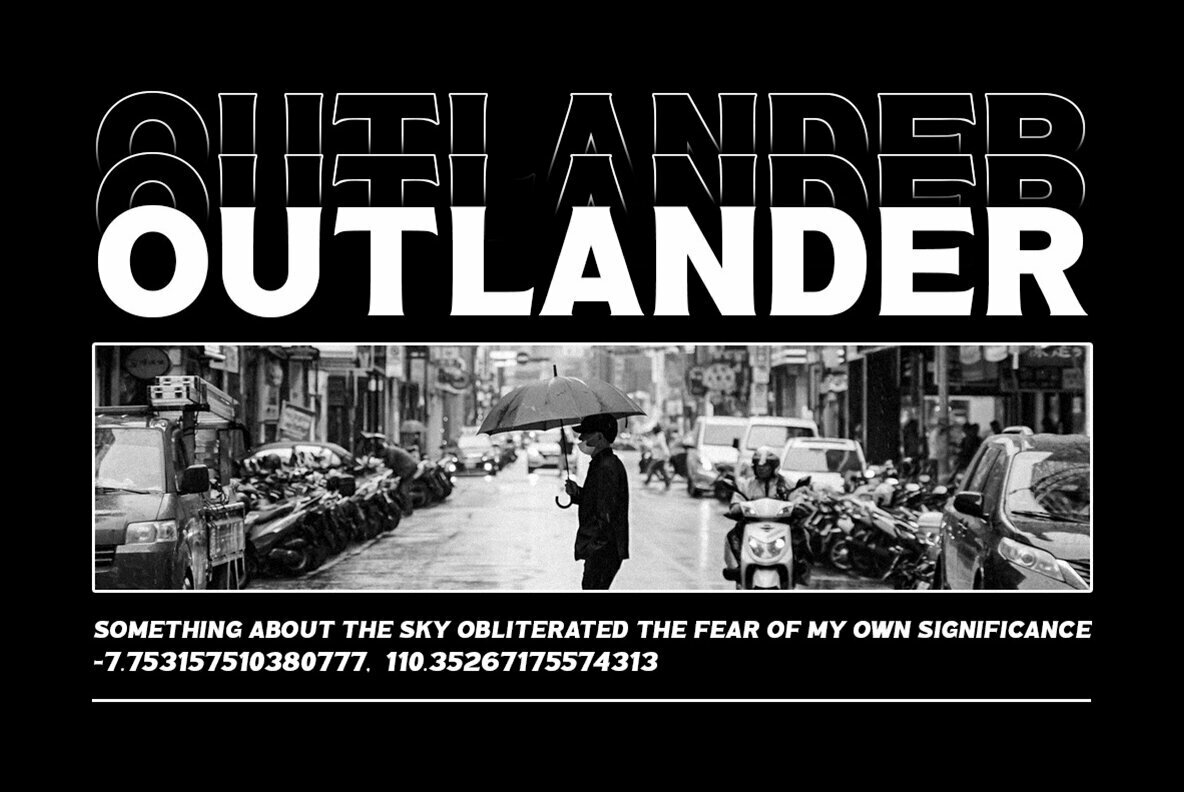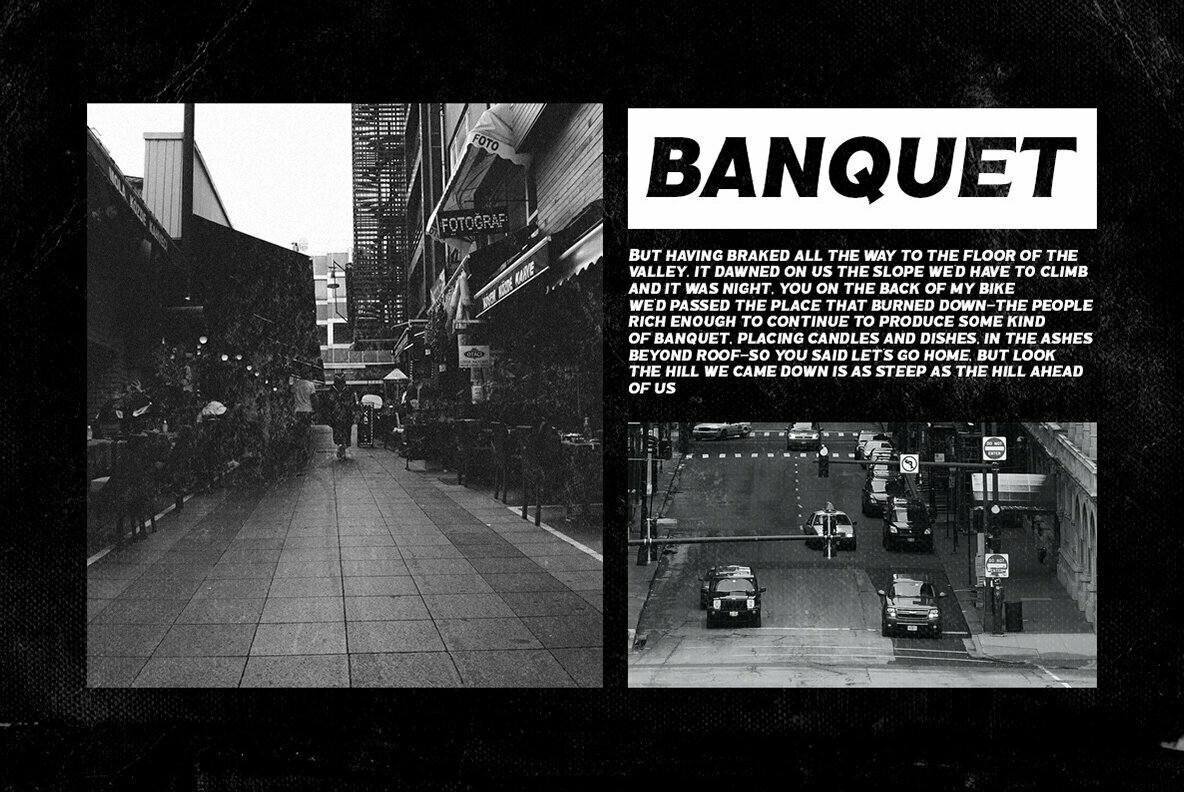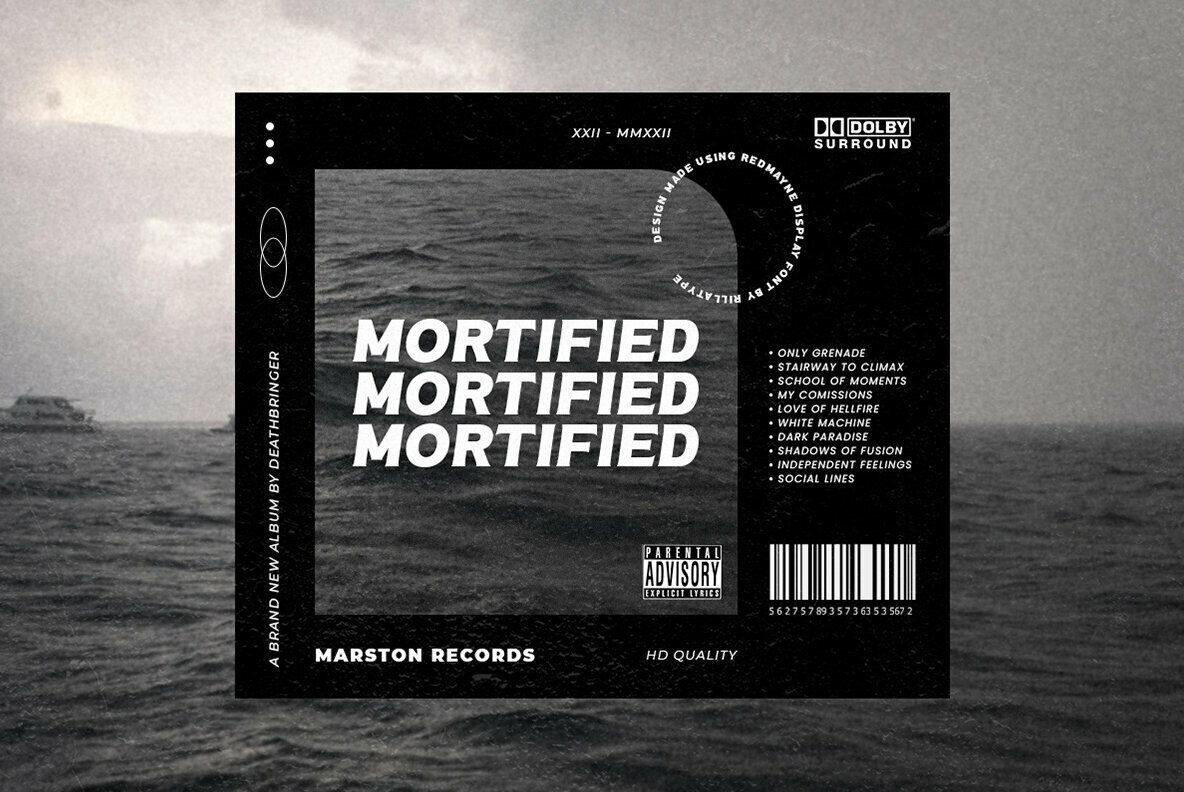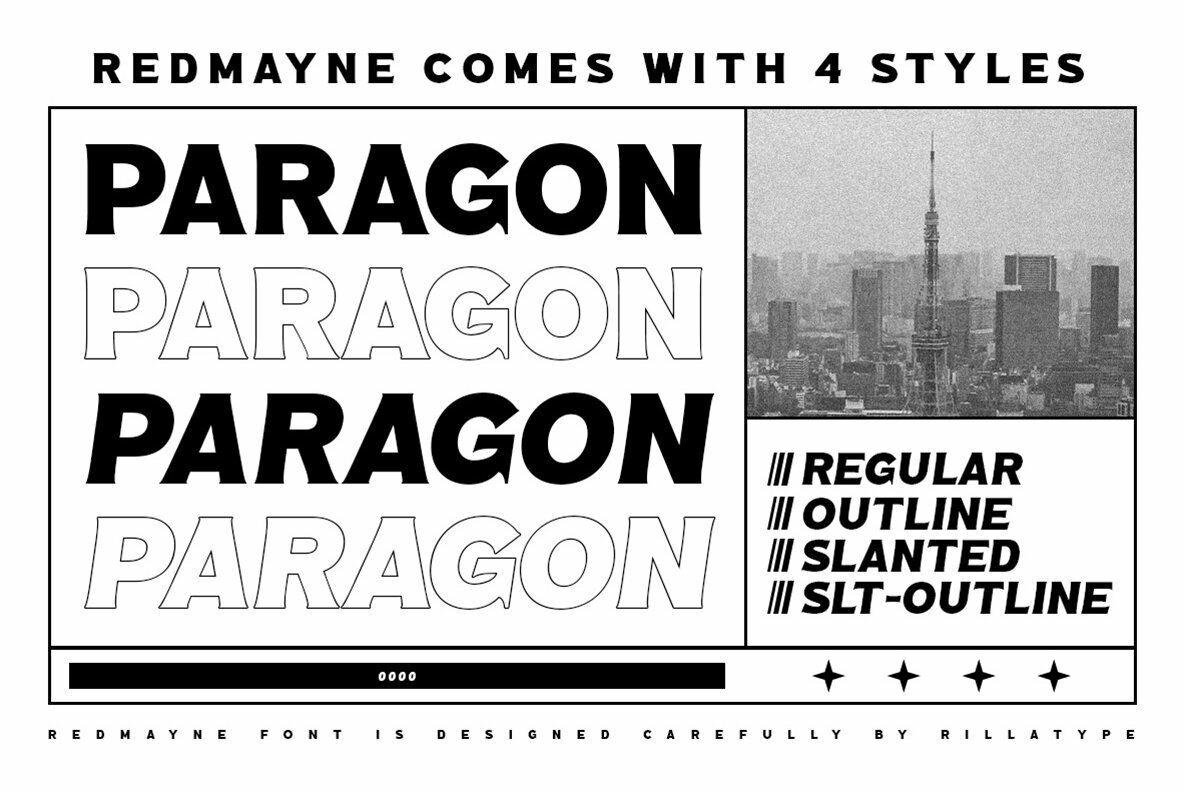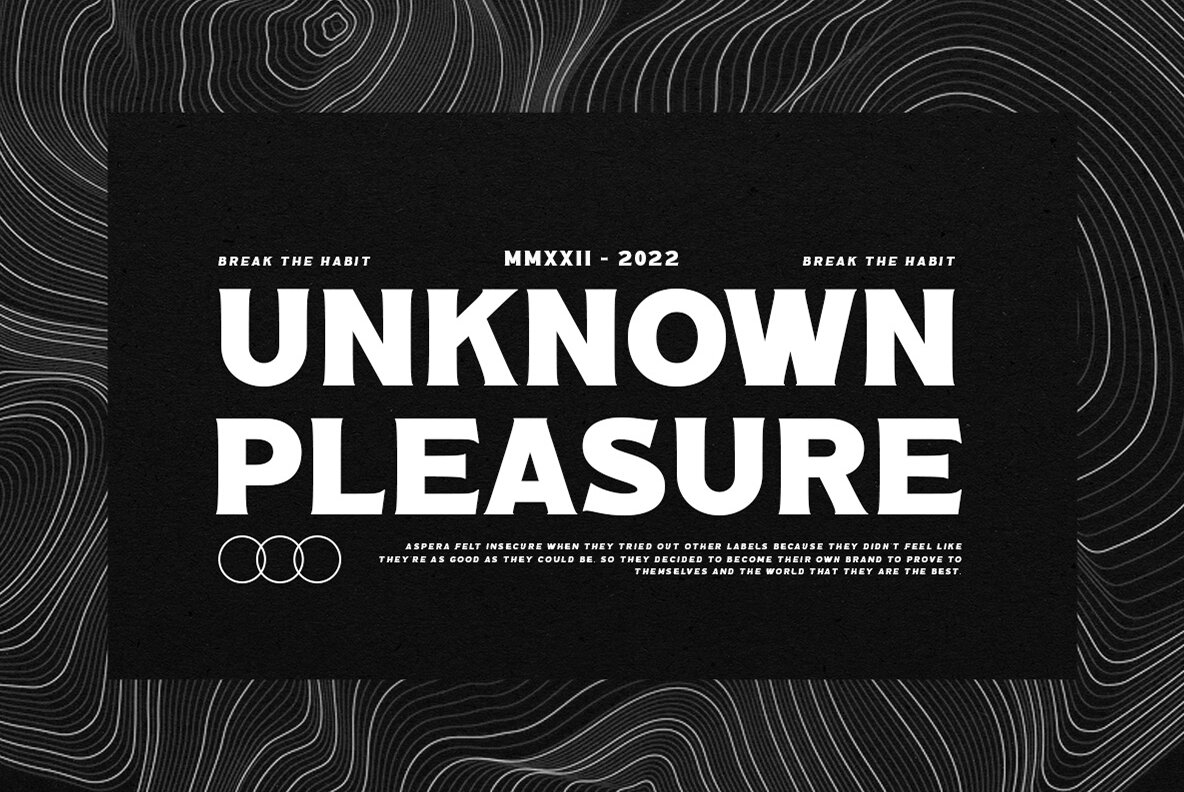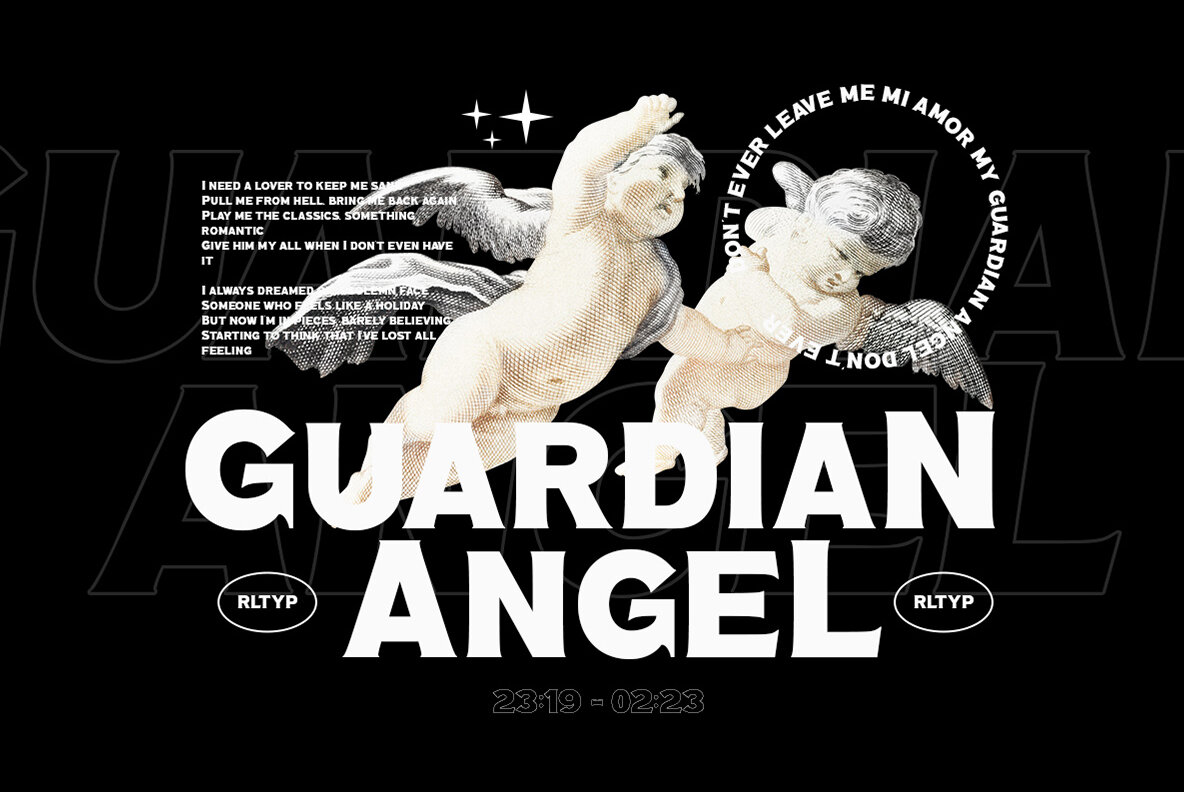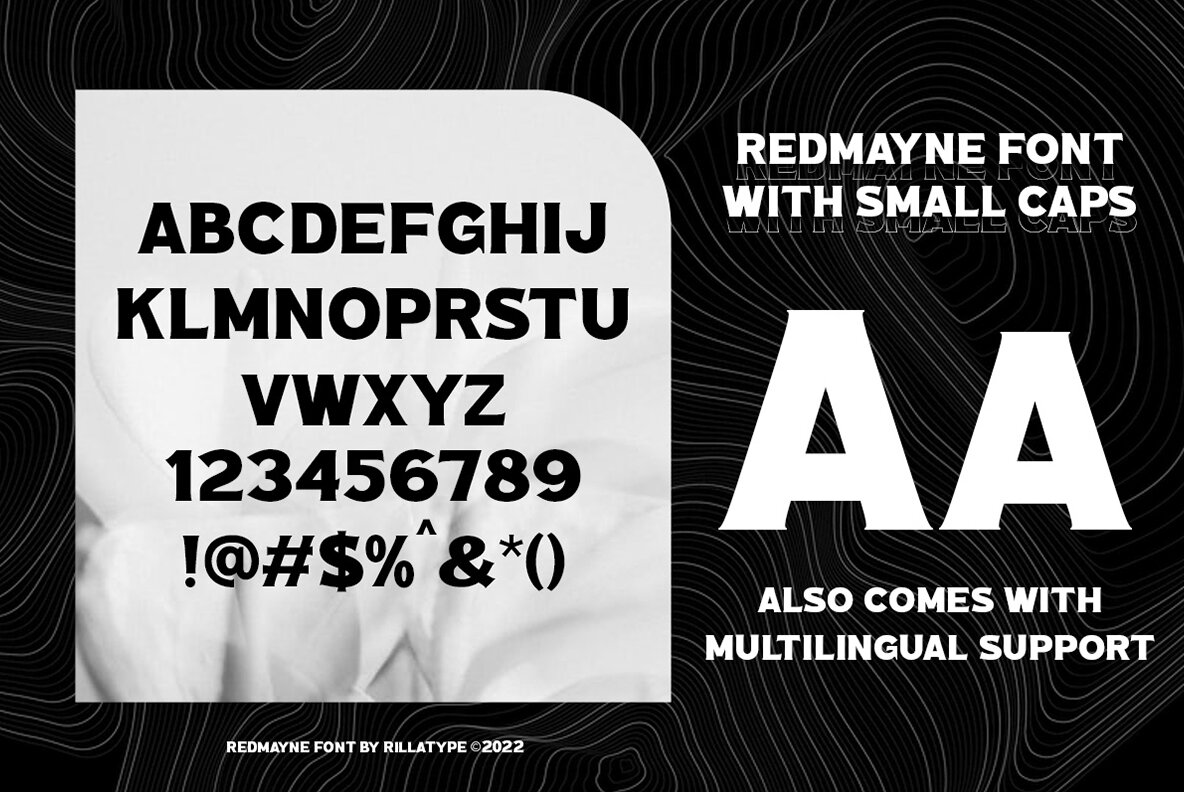
Redmayne: Bold Display Font for Impactful Designs
Redmayne is a striking display font characterized by its bold and robust aesthetic, making it ideal for designers aiming to make a strong impression. Its powerful visual presence ensures that your work commands attention while adding a unique flair to any project. Whether you're working on branding, packaging, or logo design, Redmayne provides the visual intensity needed to stand out.
Versatility and Impact
• Bold Aesthetic – Emphasizes strength and visibility.
• Eye-Catching Appeal – Enhances designs with its commanding presence.